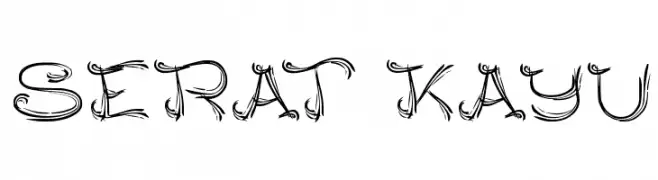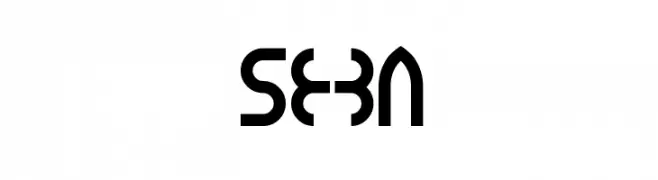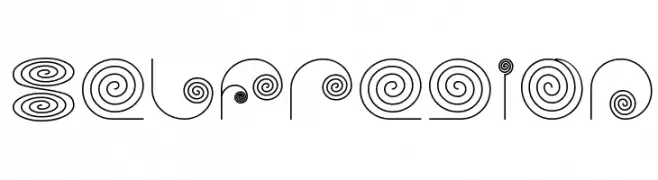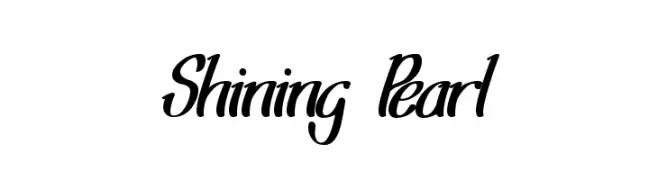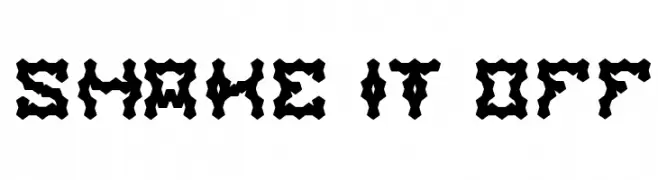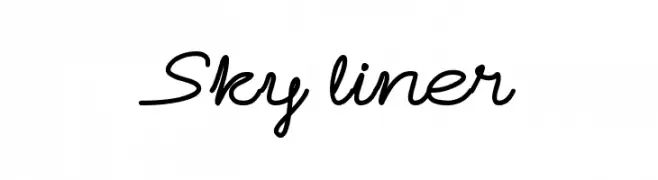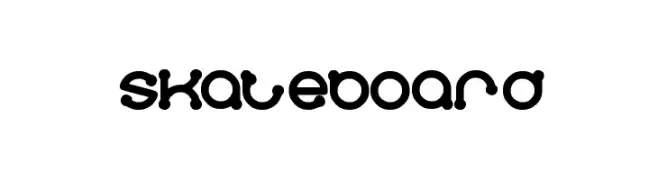
A bold, geometric font with a futuristic and dynamic style.
A whimsical font with intricate spiral designs and thin lines.
An artistic, hand-drawn font with swirling, dynamic strokes.
A decorative, brush-stroke font with an artistic and playful style.
A bold, jagged font with sharp, irregular edges and a dynamic appearance.
A bold, modern font with a vintage touch, featuring strong, uniform characters.
A dynamic and elegant script font with flowing, cursive letterforms.
A bold, dynamic font with a slanted, energetic design.
A playful, bubble-like font with rounded, bold characters.
A flowing, cursive font with elegant, connected letters and a slight right slant.